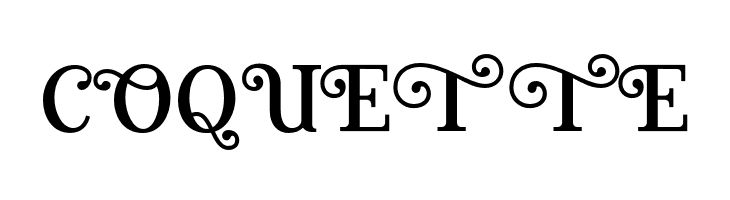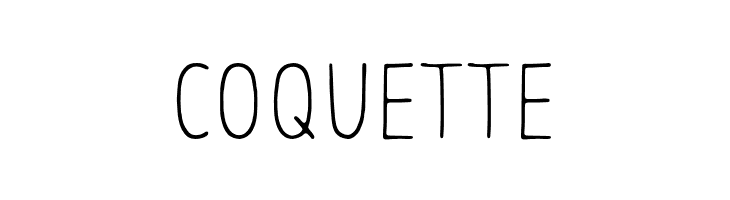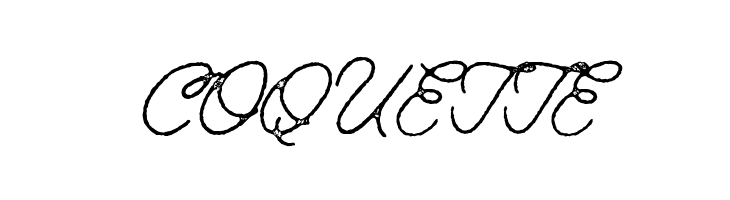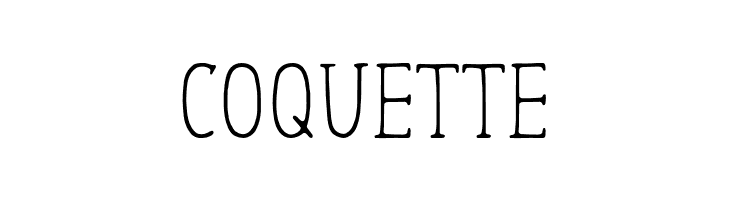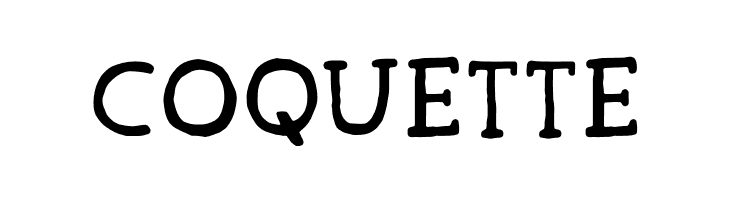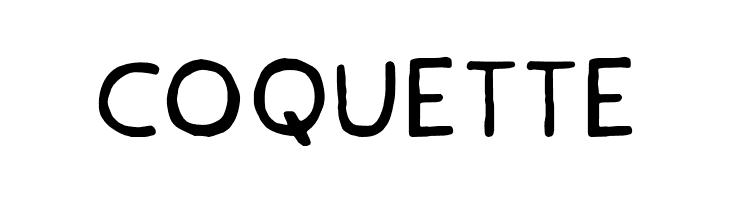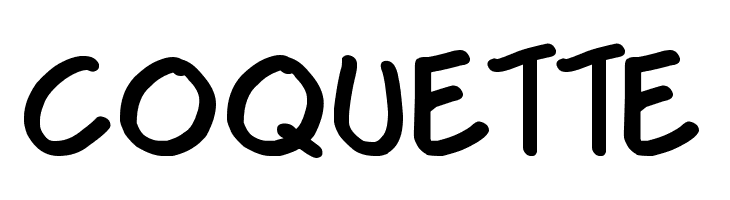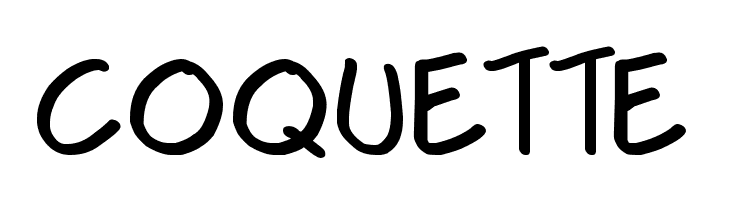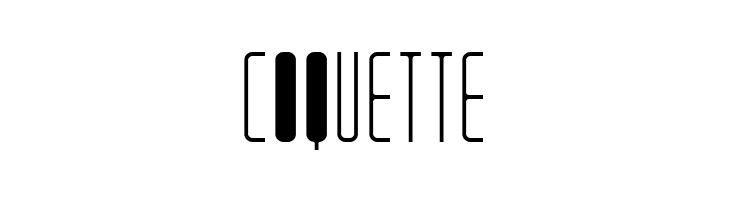
A bold, expressive font with dynamic curves and sharp edges.
A bold, hand-drawn font with rounded edges and a playful, informal style.
A rough, textured script font with a handwritten feel.
A bold serif typeface with a handcrafted, classic appearance.
A playful, hand-drawn font with a whimsical and informal style.
A playful, handwritten-style font with consistent stroke width and modern appeal.
A modern font with high contrast and geometric influences, ideal for striking designs.
A playful, casual handwritten font with smooth, rounded letterforms.
A bold, playful handwritten font with a lively and informal style.
A decorative font with playful curls and elegant swirls.